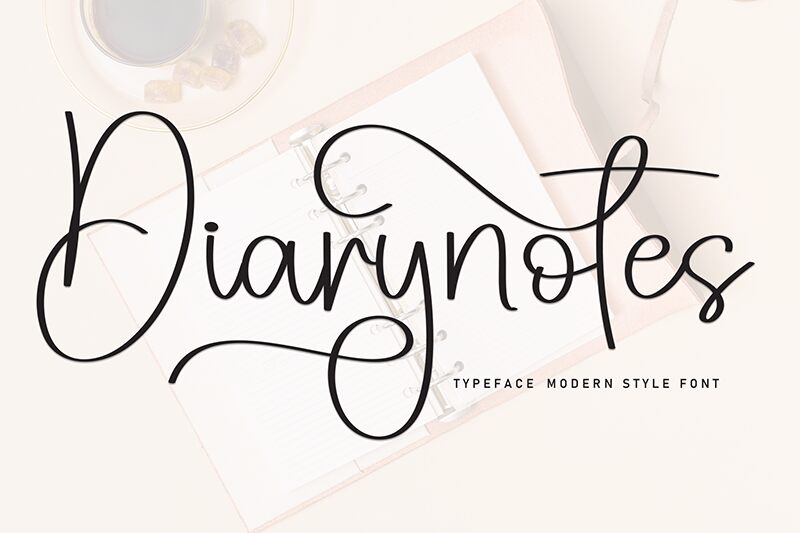
Diarynotes
Diarynotes font by Scratchones is a modern light handwritten font with an elegant style. Its flowing and expressive nature creates artistic and impressive typography that stands out. Its design in which each character presents a personal touch gives the font its unique presence among handwritten fonts, conveying both a sense of warmth and authenticity.
Free to download, Diarynotes suits plenty of design projects including advertisements posters, photography, business cards, book covers or magazine layouts. It can be used for quotes or product packaging for branding results as remarkable as the project itself. Enjoy it also with certificates or invitations where elegance is key!